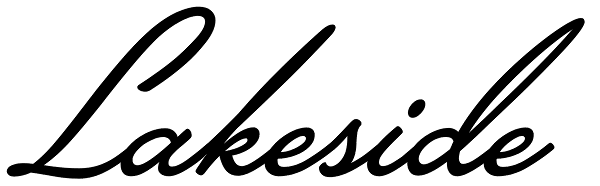
Lakeside
Lakeside is a 1940s-style brush script inspired by the hand-lettered titles in the film noir classic "Laura". It is available exclusively in the OpenType font format and features three different styles of caps—normal caps, over-sized titling...